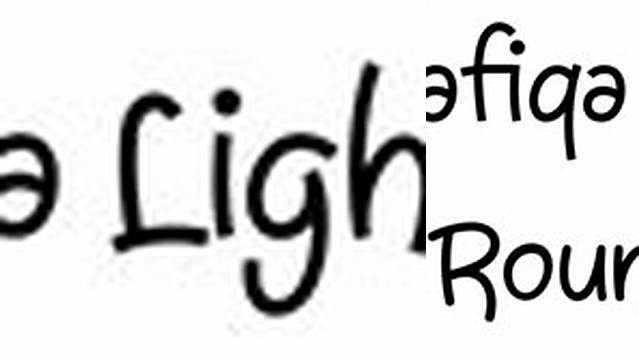
Syafiqa Light Font: Free Download And Usage Guide
Are you on the hunt for a stylish, readable, and versatile font to elevate your design projects? Look no further! In this article, we're diving deep into the world of Syafiqa Light, a font that has been capturing the attention of designers and creatives alike. We'll explore what makes Syafiqa Light so special, where you can find it for free download, and how to best utilize it in your various projects. So, whether you're a seasoned designer or just starting out, grab a cup of coffee, settle in, and let's get started!
What Makes Syafiqa Light So Special?
Syafiqa Light isn't just another font; it's a carefully crafted typeface that blends elegance with readability. Its delicate strokes and clean lines give it a contemporary feel, making it perfect for a wide range of applications. Think about it – from websites and branding materials to invitations and presentations, Syafiqa Light can add a touch of sophistication without sacrificing clarity. The subtle lightness of the font makes it incredibly versatile, working beautifully in both headlines and body text. This adaptability is a major reason why it's become a favorite among designers who need a reliable font that can perform well in different contexts. Imagine using Syafiqa Light on a sleek, modern website – it instantly enhances the visual appeal without overwhelming the content. Or consider incorporating it into a wedding invitation; its elegance adds a touch of class that other fonts might miss. Furthermore, its clean design ensures that even smaller text remains legible, a crucial factor for user experience. Beyond aesthetics, Syafiqa Light also boasts excellent kerning and character spacing, meaning the letters fit together harmoniously, creating a visually pleasing flow. This attention to detail is what sets professional fonts apart, and Syafiqa Light certainly delivers. The font's versatility also extends to its compatibility with various design software and platforms. Whether you're working in Adobe Photoshop, Illustrator, InDesign, or even web-based design tools, Syafiqa Light integrates seamlessly. This ease of use is another reason why designers love it – it's a font that you can rely on to perform consistently across different projects and mediums. So, when you're choosing a font for your next project, remember that Syafiqa Light offers a unique blend of style, readability, and versatility that can truly elevate your design.
How to Best Utilize Syafiqa Light in Your Projects
Now that you've (hopefully!) got your hands on Syafiqa Light, let's talk about how to make the most of it. This font is a real gem, but like any design tool, it shines brightest when used thoughtfully. One of the key strengths of Syafiqa Light is its versatility, so don't be afraid to experiment with it in different contexts. First off, consider the overall tone and message of your project. Syafiqa Light's elegance makes it a fantastic choice for projects that need a touch of sophistication, such as wedding invitations, luxury branding, or high-end websites. However, its clean lines also make it suitable for more contemporary and minimalist designs. Think about using it in a portfolio website or a modern blog layout. For headlines, Syafiqa Light can create a striking impact, especially when paired with a bolder font for subheadings or body text. The contrast between the lightness of Syafiqa Light and a heavier font can draw the reader's eye and create a visual hierarchy. Experiment with different font weights and sizes to find the perfect balance. In body text, Syafiqa Light's readability is a major asset. It's comfortable to read even in longer paragraphs, which is crucial for websites, articles, and other content-heavy designs. However, be mindful of the font size and line spacing. Too small, and it might strain the eyes; too tight line spacing, and the text can feel cramped. Aim for a font size that's easy on the eyes (typically around 16-18px for web) and generous line spacing (around 1.5x the font size) to ensure a pleasant reading experience. When using Syafiqa Light in branding materials, think about how it reflects your brand's personality. Its elegance can convey a sense of luxury and refinement, while its clean lines can suggest modernity and simplicity. Use it in your logo, business cards, and website to create a consistent and professional brand identity. Guys, color plays a big role too! Syafiqa Light looks stunning in a variety of color palettes, but it particularly shines against darker backgrounds. The contrast between the light font and a dark backdrop can create a sophisticated and eye-catching effect. However, it also works well in lighter color schemes, especially when paired with other elegant fonts and design elements. Don't forget about kerning and tracking – these subtle adjustments can make a big difference in the overall look and feel of your text. Kerning refers to the spacing between individual letters, while tracking adjusts the spacing across a range of letters. Syafiqa Light generally has excellent kerning out of the box, but it's always worth fine-tuning it to ensure a perfect fit in your specific design. Finally, remember to test your designs across different devices and browsers. A font that looks great on your computer might not render perfectly on a mobile device or in a different browser. Use online tools or ask friends to preview your designs on various platforms to ensure consistency and readability. By keeping these tips in mind, you can unlock the full potential of Syafiqa Light and create stunning designs that truly stand out.
Alternatives to Syafiqa Light if You Can't Find It
Alright, so what if you're having trouble finding Syafiqa Light for free download, or maybe it's just not quite the right fit for your project? Don't sweat it! There are tons of fantastic font alternatives out there that can give you a similar look and feel. The world of typography is vast and varied, and exploring different options can often lead to unexpected discoveries. If you're drawn to Syafiqa Light's elegance and readability, you might want to consider other light, sans-serif fonts. These fonts tend to have clean lines and a modern aesthetic, making them versatile for a wide range of applications. One excellent alternative is Montserrat. This font, available on Google Fonts, is a popular choice for its geometric design and excellent readability. It comes in a variety of weights, including a light version, so you can easily achieve a similar look to Syafiqa Light. Another great option is Lato, also available on Google Fonts. Lato is a sleek, sans-serif font with a warm and friendly feel. Its light version is particularly well-suited for body text, as it's easy on the eyes even in longer paragraphs. If you're looking for something a bit more unique, consider Open Sans. This font has a slightly condensed design, which can be useful if you need to fit more text into a limited space. It's also available in a light version and offers excellent readability across different devices and browsers. For those who appreciate a touch of sophistication, Raleway is worth exploring. This font has a slightly more stylized design than the others, with elegant letterforms that can add a touch of class to your projects. It's available in a wide range of weights, including a very light version that's perfect for headlines and accents. Guys, another alternative is to look for similar fonts on websites like FontSpace and DaFont. These platforms offer a vast selection of free fonts, and you can often find hidden gems by browsing through their collections. Use keywords like "light sans-serif" or "elegant font" to narrow down your search and discover fonts that match your desired style. When choosing an alternative font, it's essential to consider the overall tone and message of your project. Think about how the font will interact with other design elements, such as colors, images, and layout. Test out different fonts in your design to see which one works best. Remember, the goal is to find a font that not only looks great but also effectively communicates your message. Don't be afraid to experiment and try new things. Sometimes the best font is the one you least expect. By exploring different alternatives and considering your specific design needs, you can find a font that's just as beautiful and versatile as Syafiqa Light, even if you can't get your hands on the original. So, keep searching, keep experimenting, and have fun with typography!
Conclusion: Embrace the World of Typography
So, guys, we've journeyed through the world of Syafiqa Light, exploring its qualities, where to find it, how to use it, and what alternatives exist. Typography is a powerful tool in design, and understanding how to wield it effectively can truly elevate your projects. Whether you end up using Syafiqa Light or another fantastic font, remember that the key is to choose a typeface that aligns with your project's message and aesthetic. Don't be afraid to experiment, explore, and let your creativity guide you. There's a whole universe of fonts out there just waiting to be discovered, so dive in and start creating something amazing!